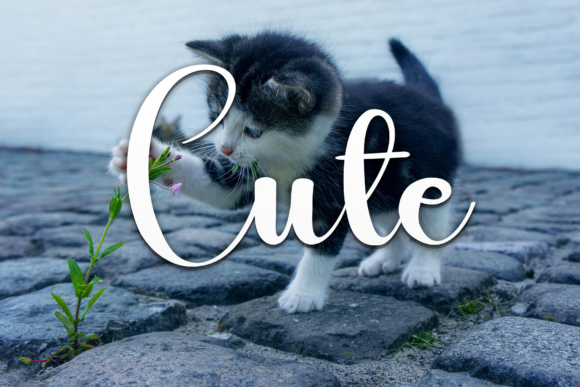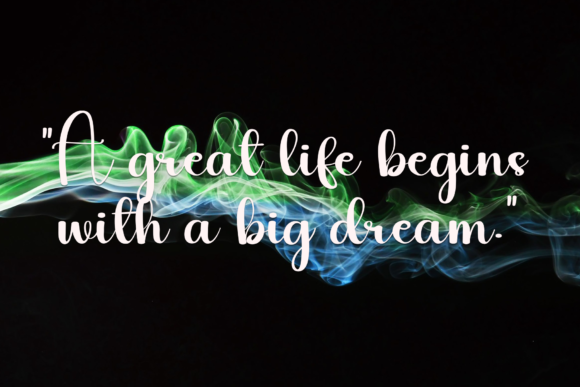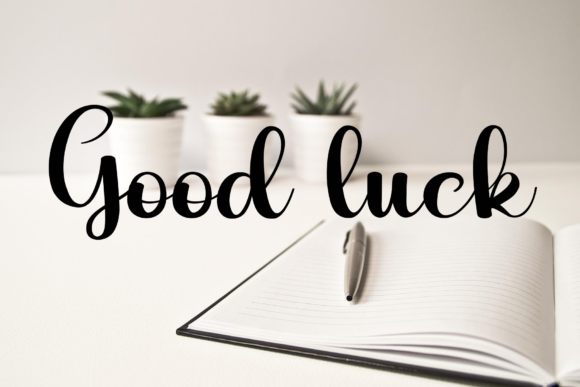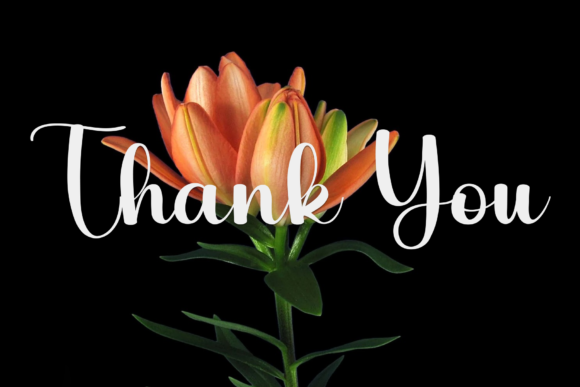
Have you ever been working on a design project, pouring your heart and soul into every detail, and then suddenly, you’re stuck? You’re trying to convey a sense of elegance and sophistication, but your font just isn’t cutting it. That’s when you stumble upon the perfect solution – Digie Font.
This sweet and whimsical script font is designed to add a touch of luxury to any design project. With its flowing and thin characters, Digie Font will dance along the baseline, making your design stand out from the crowd. Whether you’re a professional designer or a hobbyist, Digie Font is a valuable addition to your toolkit, offering a unique and eye-catching style that will elevate your work to the next level.
Digie Font Key Features
- Unique Characteristics: Digie Font features a unique, modern design with a blend of geometric and organic elements, giving it a distinctive look that sets it apart from other fonts.
Digie Font Review
I recently had the chance to work with the Digie Font, and overall, I was impressed. ✨ The font’s playful and futuristic feel is perfect for projects that need a bit of whimsy and personality. I particularly enjoyed working with the bold and italic styles, which added a nice depth to my designs.
Here are some of the things that worked well:
- Easy to read and understand even at small sizes
- Wide range of weights and styles to choose from
- Works well for headings and body text
- May not be suitable for formal or professional projects
- Can be a bit overbearing if used in large quantities
- Lack of support for certain special characters
Overall, I think the Digie Font is a solid choice for designers looking for a fun and modern typeface. While it may not be perfect, its strengths make it a great option for the right projects. With a bit of care and attention, I think the Digie Font can add a lot of value to your designs.
Introduction to Digie Font
Digie Font is a versatile digital font that can be used across various platforms. It’s perfect for creating eye-catching graphics, logos, and text-based designs.
Some common use cases for Digie Font include:
- Creating logos and branding materials
- Designing social media graphics and advertisements
- Adding a touch of personality to presentations and reports
For getting the most out of Digie Font, try experimenting with different font sizes, colors, and